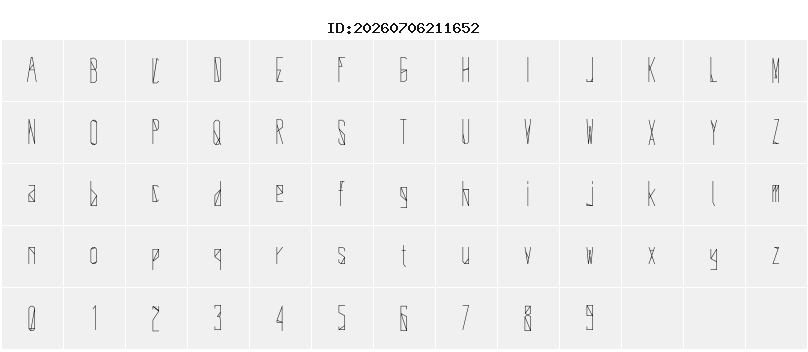
• Designer: greenegg
• Description: Delta Universe Fonts (greenegg / South Korea)
About Delta Universe.ttf
Delta Universe.ttf is a modern, elegant sans-serif font designed for ultimate readability and visual harmony. Perfect for branding, headlines, web design, and print materials.